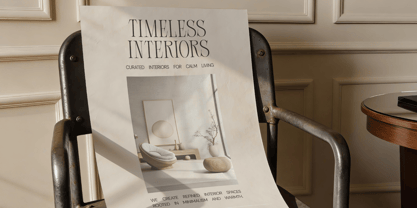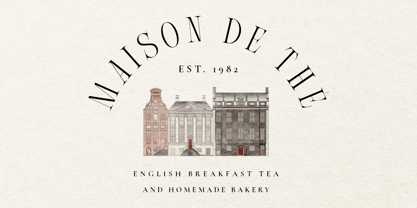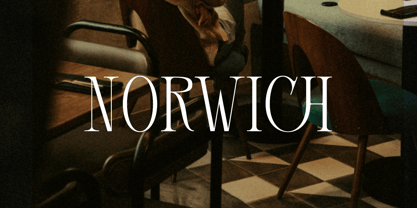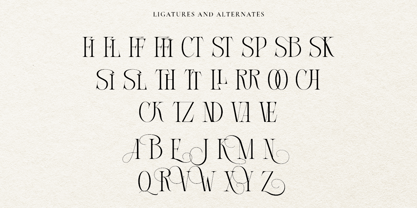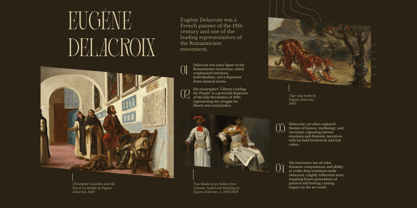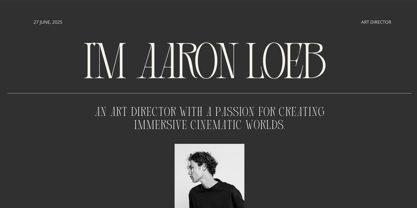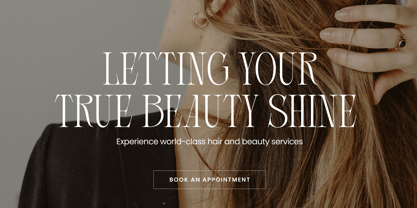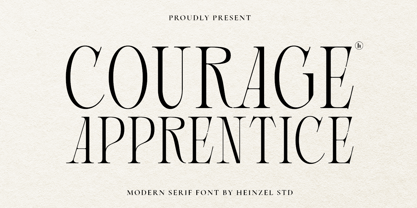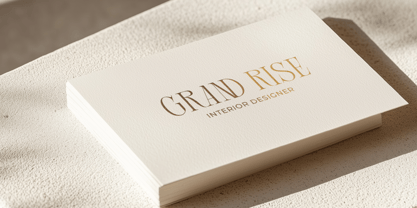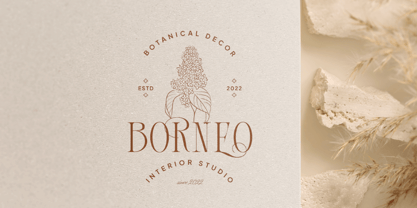
Courage Apprentice
by Heinzel Std
The Courage Apprentice Font Family was designed by Nofi Sofyan Hadi and published by Heinzel Std. Courage Apprentice contains 1 styles. More about this family
Courage Apprentice is a refined modern serif font that blends classic elegance with contemporary sophistication. Designed with high contrast strokes, graceful curves, and stylish proportions, this typeface delivers a premium and editorial feel. Its sharp serifs and elegant letterforms make Courage Apprentice perfect for luxury branding, fashion logos, magazine headlines, wedding designs, book covers, and high-end marketing materials. The font offers excellent readability while maintaining a bold, confident personality, making it ideal for both display and headline use. Courage Apprentice brings timeless beauty and modern character together in one versatile serif font.
Designers: Nofi Sofyan Hadi
Foundry: Heinzel Std